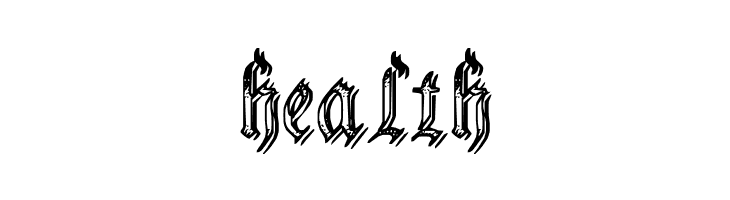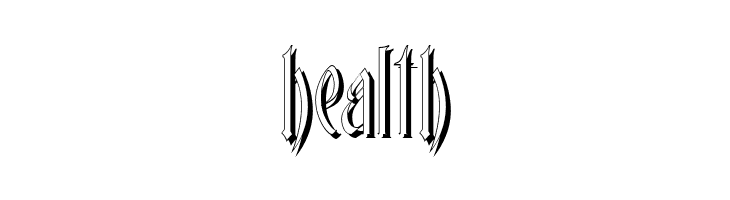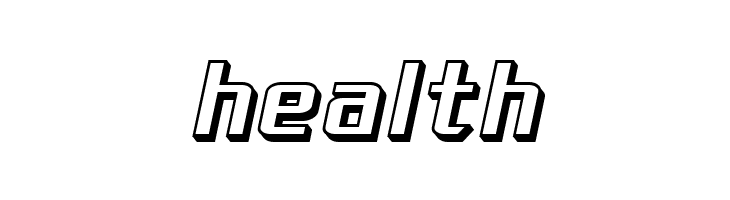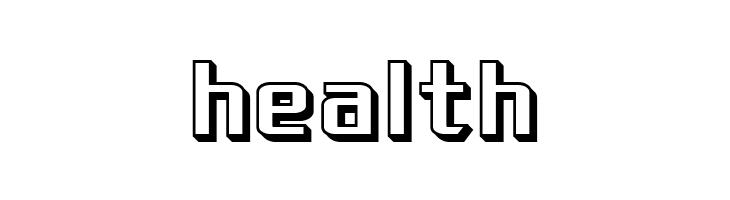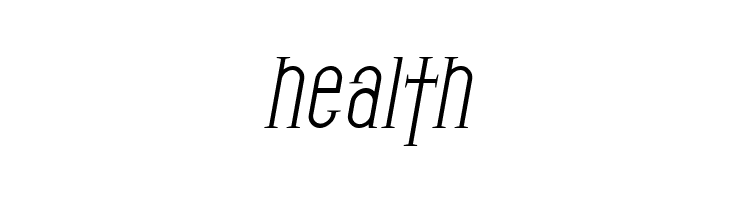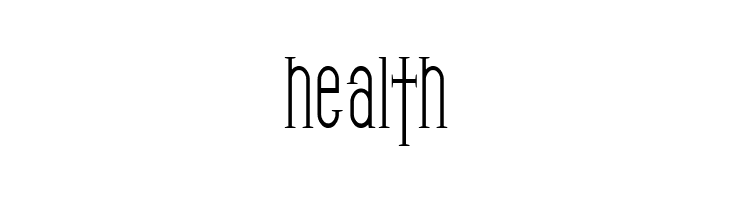
A bold blackletter font with intricate, angular letterforms and a classic gothic style.
A decorative blackletter font with a shadow effect, ideal for gothic or medieval-themed designs.
A bold, geometric font with a shaded oblique style and three-dimensional effect.
A bold, geometric font with a three-dimensional shaded effect.
A bold, extended, and oblique font with a modern and dynamic style.
A modern, oblique font with narrow, elongated characters.
A sleek, oblique, and condensed font with a modern and dynamic style.
A condensed, modern font with tall, narrow letterforms and a sleek aesthetic.